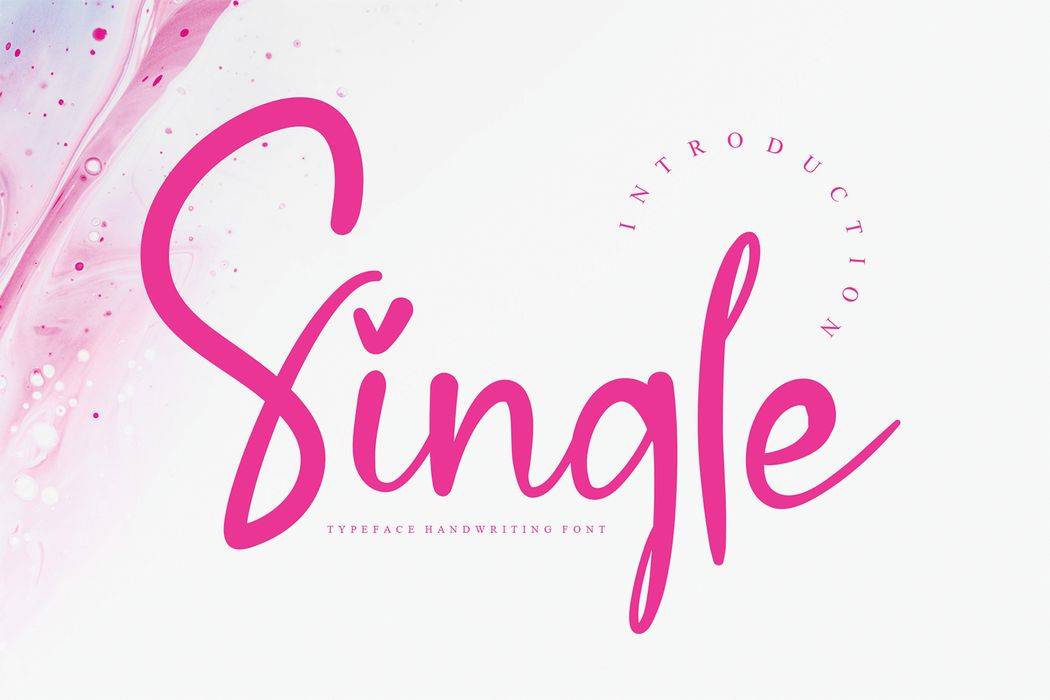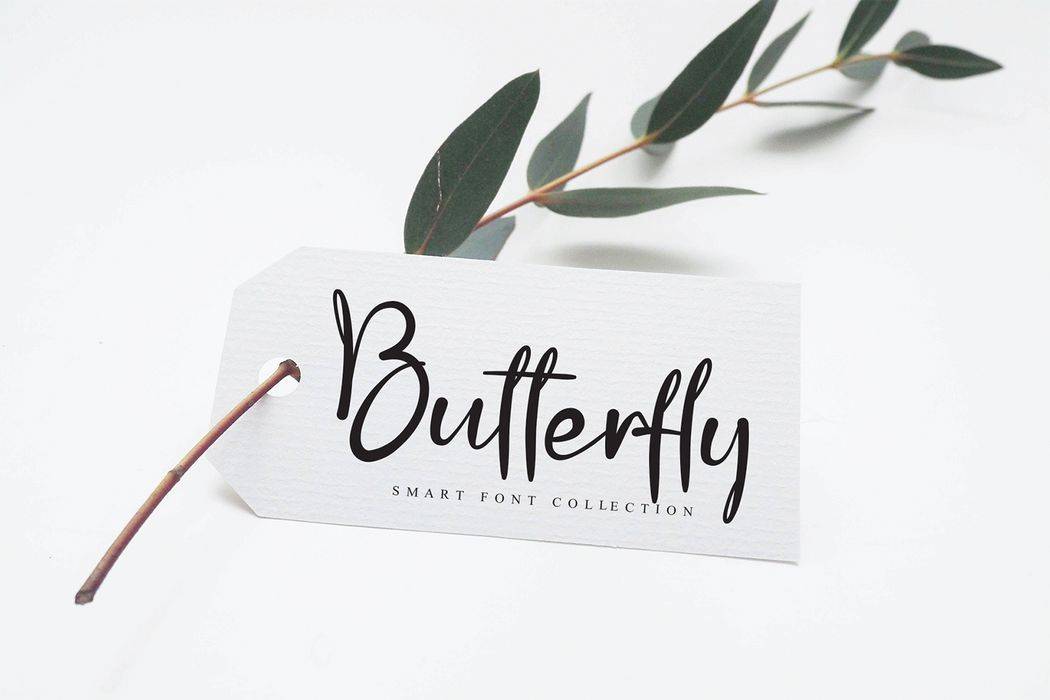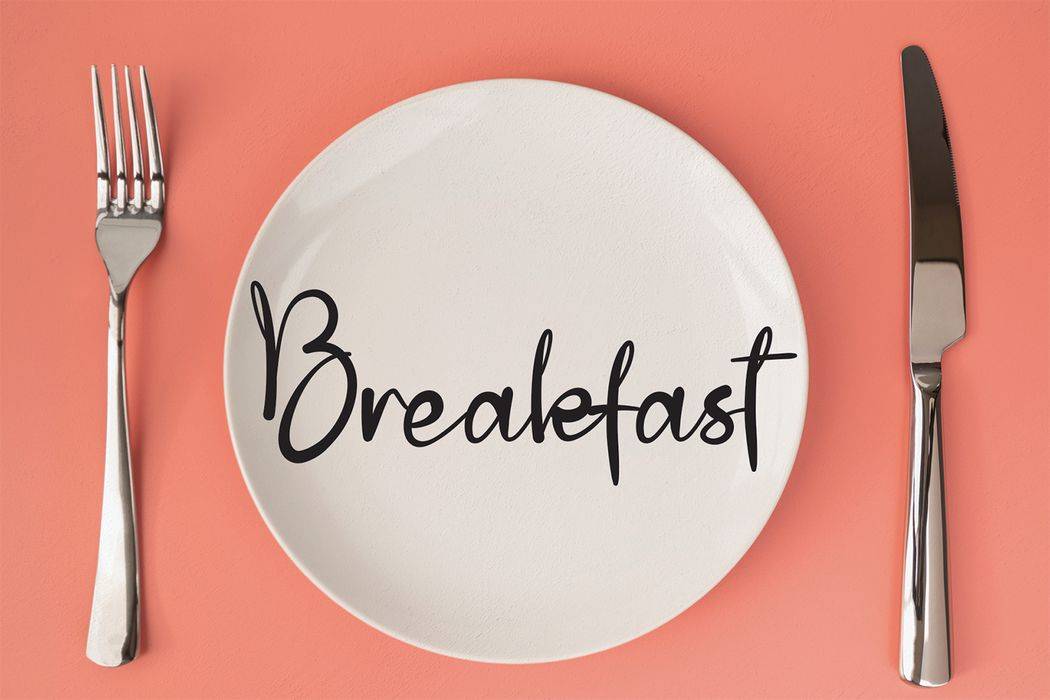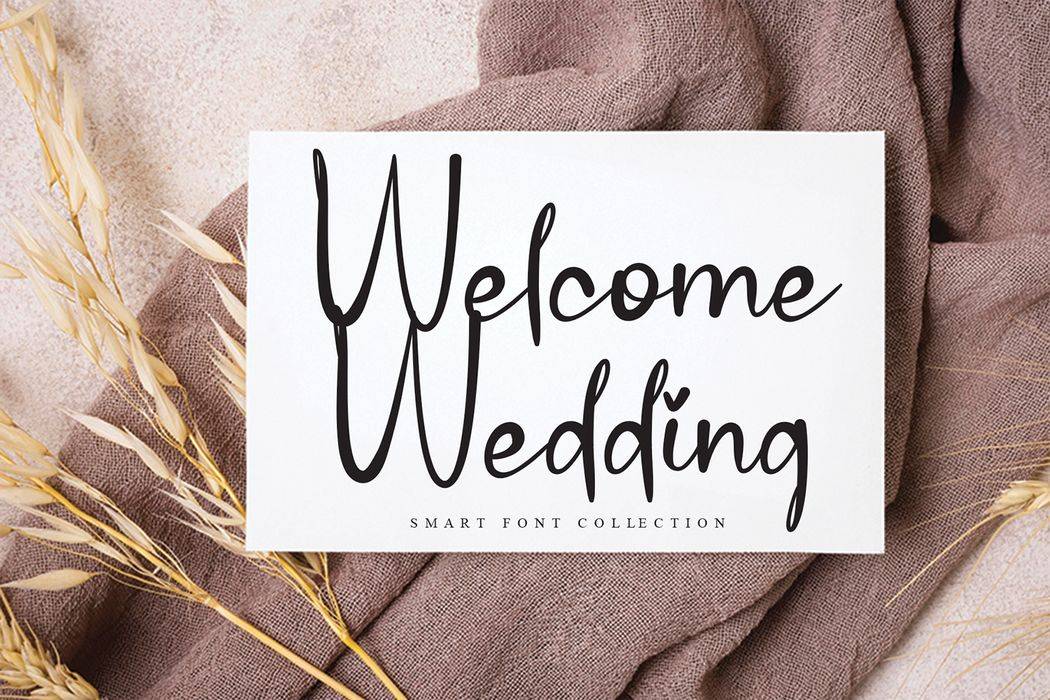
Single Font is a playful and casual handwritten script with a lively, slightly irregular stroke that gives it a personal, approachable feel. Its tall, narrow letterforms and mix of looping and straight lines make it well-suited for designs that want to convey friendliness and creativity, such as greeting cards, informal branding, or social media graphics. This font works best in display settings where its unique personality can shine, adding a whimsical and charming touch to any project.
Single Font